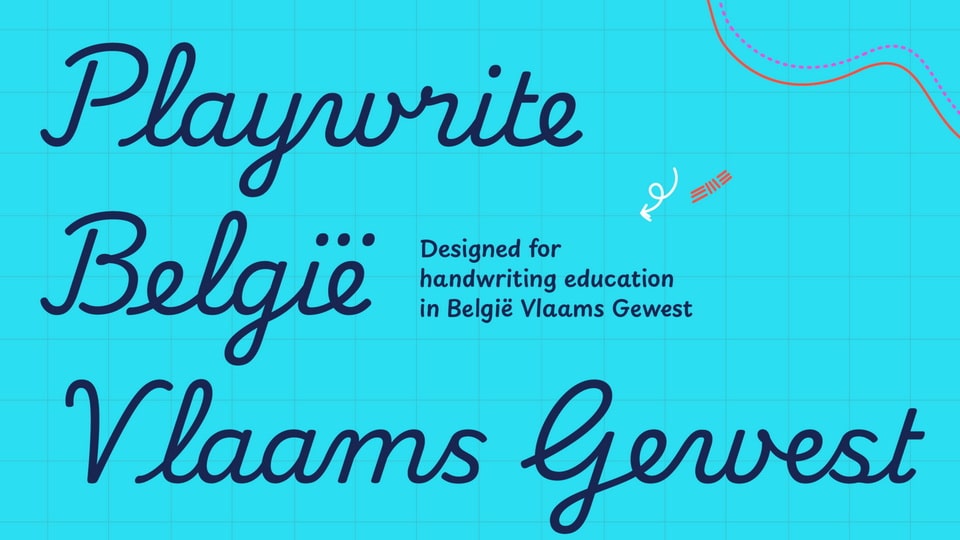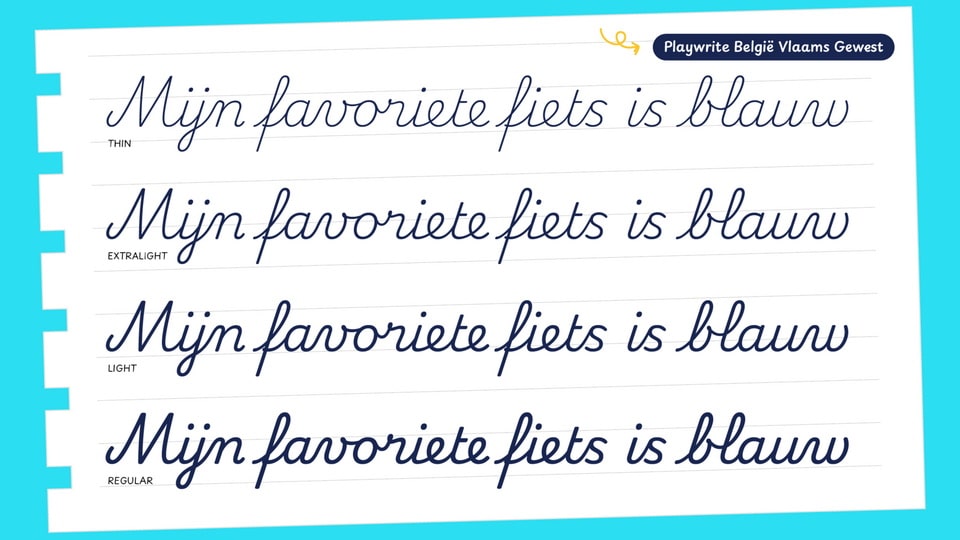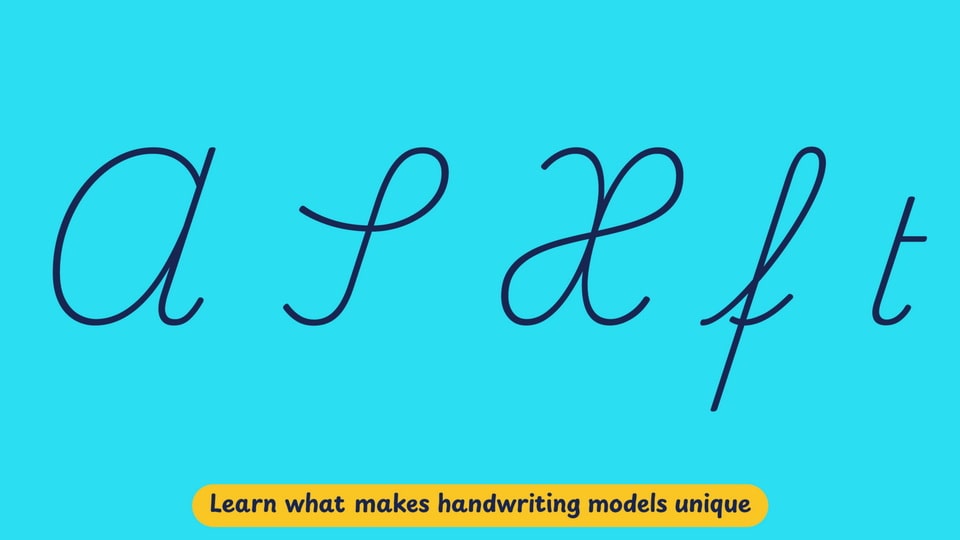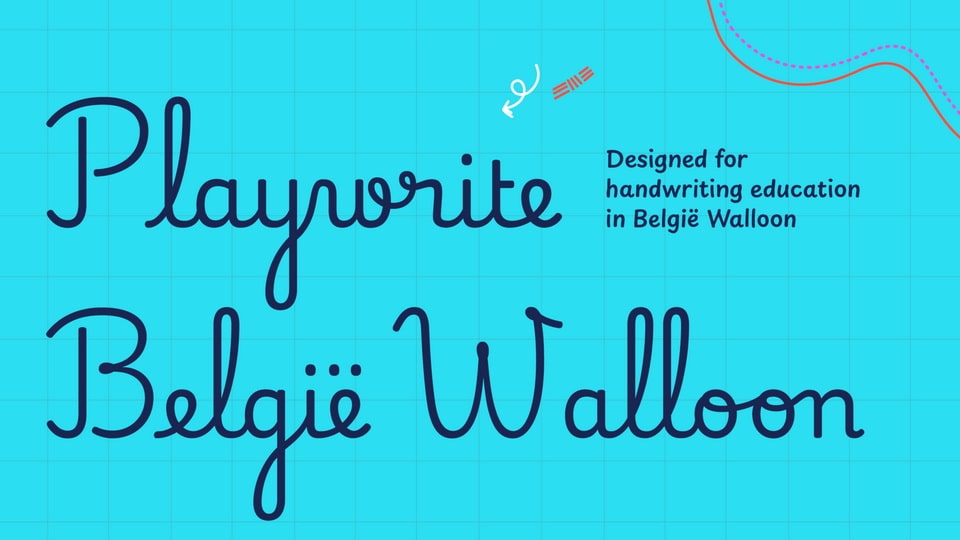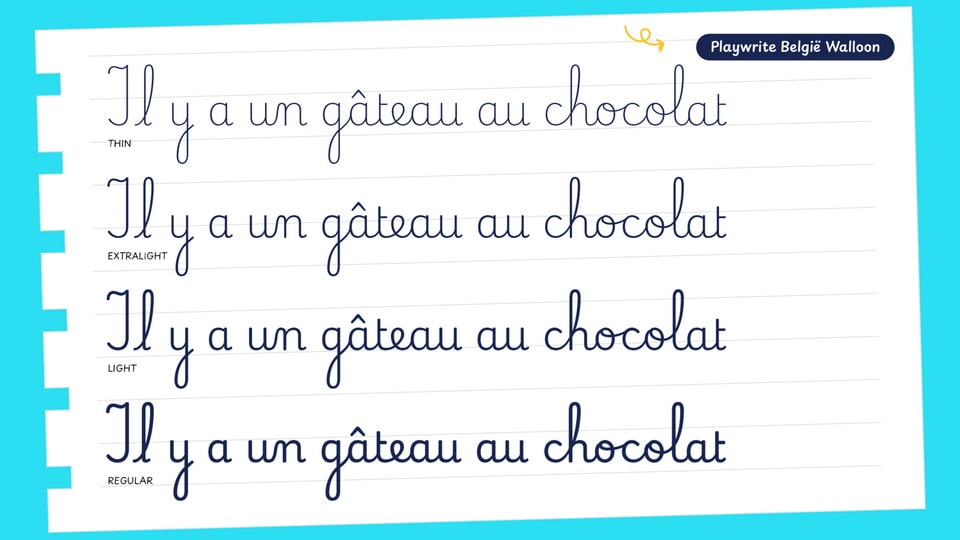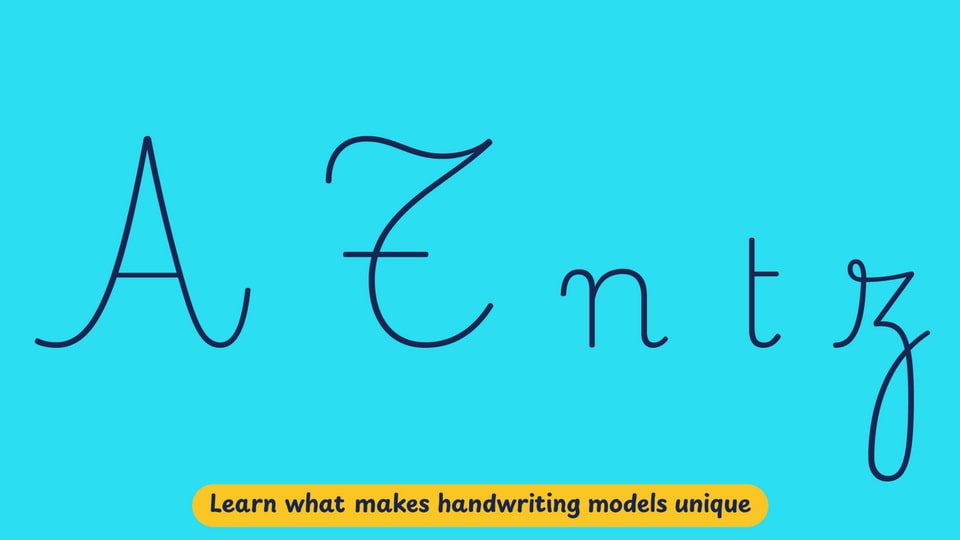
Playwrite is a typeface engine that allows the creation of primary school cursive fonts.
The Dutch-French language divide in Belgium, a phenomenon with roots stretching back to the Middle Ages, continues to be relevant in the country today. Traditions of handwriting education exemplify this circumstance, and reflect the country’s historical ties to France and the Netherlands. Regardless of the handwriting model adopted, students learn print script letters in kindergarten and progress to connected letters in primary school. In Flanders, there is a preference for sloped continuous cursive writing, reminiscent of Dutch handwriting models, whereas the French-speaking community in the Walloon region opts for upright cursive writing, a style that enjoys popularity in France. This diversity in handwriting education is a direct response to Belgium’s rich linguistic culture, leading to the introduction of a second official language early in the school years.